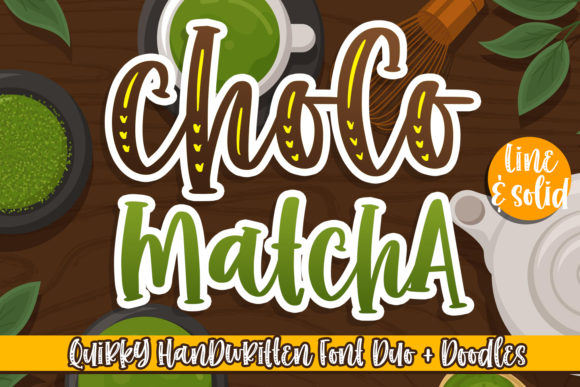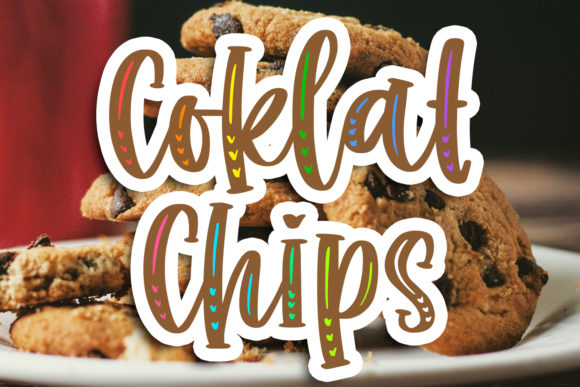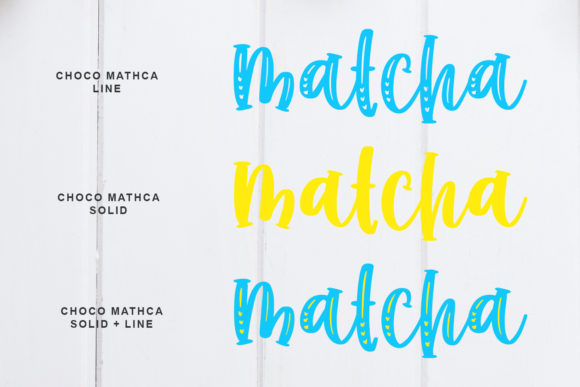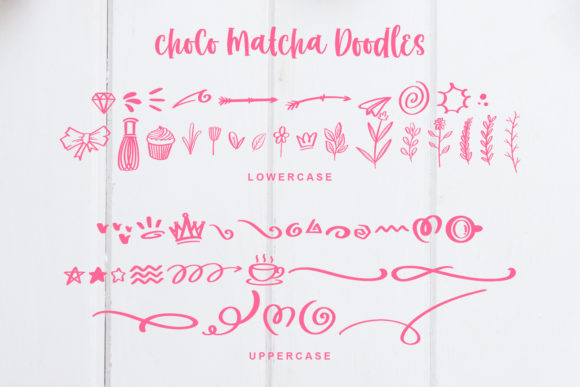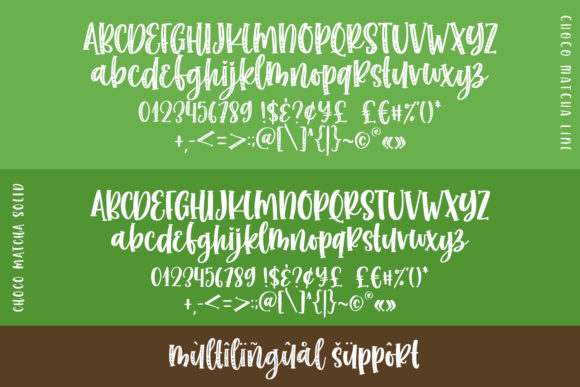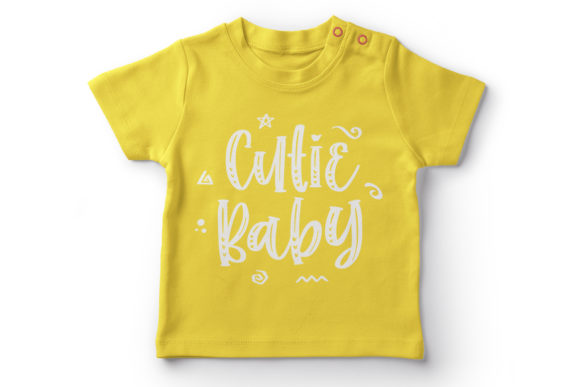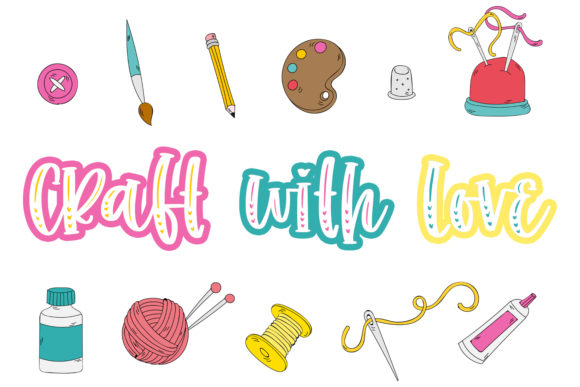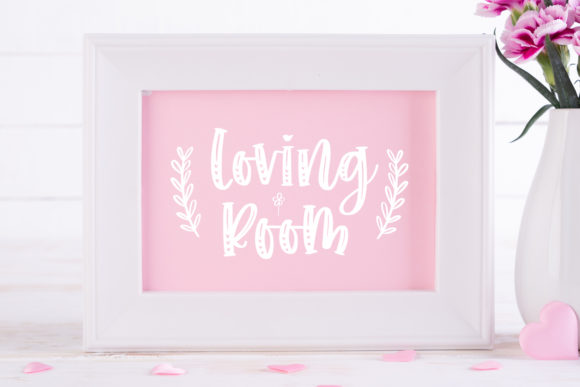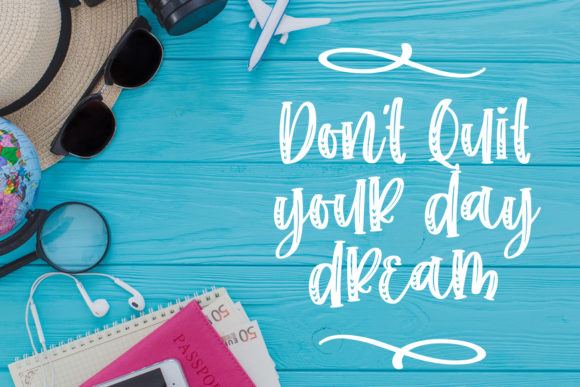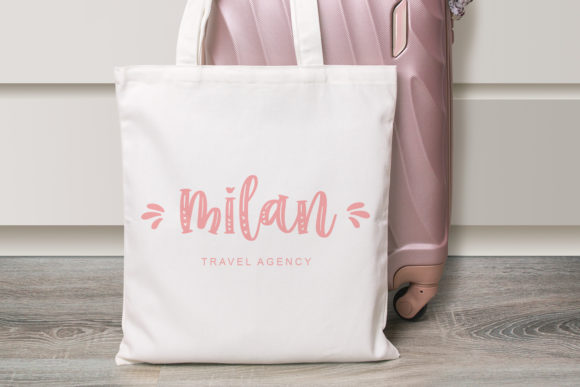
Choco Matcha Font
About Choco Matcha Font
Choco Matcha sounds like a delightful and versatile handwritten font that brings a touch of sweetness and quirkiness to any design. With its charming style, it offers numerous creative possibilities for a variety of projects. Here are some exciting ways to use Choco Matcha font to create stunning designs:
1. Wedding Invitations: Design adorable and playful wedding invitations using Choco Matcha font to add a unique and whimsical touch to the special day.
2. Stationery Art: Create beautiful and captivating stationery art pieces featuring Choco Matcha font, perfect for home decor or gifting.
3. Social Media Posts: Use Choco Matcha font in social media graphics to add a fun and eye-catching element to your posts and stories.
4. Blog Headers: Incorporate Choco Matcha font into blog headers and titles for a delightful and artistic look that will grab readers’ attention.
5. Art Prints: Design cute and charming art prints with Choco Matcha font, ideal for nurseries, kids’ rooms, or playful decor.
6. Personalized Gifts: Create personalized gifts, like mugs, tote bags, or phone cases, using Choco Matcha font to add a touch of sweetness and quirkiness.
7. Greeting Cards: Design cute and heartwarming greeting cards featuring Choco Matcha font, perfect for any occasion.
8. Recipe Cards: Use Choco Matcha font on recipe cards for a charming and fun look that will make cooking and baking more enjoyable.
9. Branding and Packaging: Incorporate Choco Matcha font into branding and packaging for products that need a playful and friendly touch.
10. Children’s Book Covers: Use Choco Matcha font in children’s book covers to create captivating and engaging designs for young readers.
11. Party Invitations: Design fun and vibrant party invitations using Choco Matcha font, setting the tone for a lively and enjoyable celebration.
12. Stickers and Labels: Customize stickers or labels with Choco Matcha font to add a whimsical and charming touch to packaging or crafts.
13. Motivational Quotes: Combine Choco Matcha font with uplifting quotes to create motivational prints that inspire and bring joy.
14. Cute Merchandise: Apply Choco Matcha font to create cute and charming merchandise like enamel pins or keychains.
15. Scrapbooking: Use Choco Matcha font in scrapbooking projects to add a touch of creativity and playfulness to memory keeping.
16. Kids’ Educational Materials: Design educational materials for children with Choco Matcha font to make learning fun and engaging.
17. Birthday Party Decorations: Create adorable birthday party decorations using Choco Matcha font for a delightful and memorable celebration.
18. Fun Signage: Use Choco Matcha font in fun and quirky signage for events, cafes, or shops, adding a playful and inviting atmosphere.
19. DIY Craft Projects: Apply Choco Matcha font in various DIY craft projects, adding a personal and artistic touch to handmade items.
20. Playful Branding: Utilize Choco Matcha font in branding for businesses that want to convey a sense of fun, warmth, and creativity.
In conclusion, Choco Matcha is a sweet and quirky handwritten font that offers endless possibilities to bring a sense of delight and charm to a wide range of design projects. Whether you’re creating wedding invitations, social media graphics, or children’s book covers, Choco Matcha font is sure to infuse your designs with a touch of playfulness and versatility that will captivate hearts and stand out.